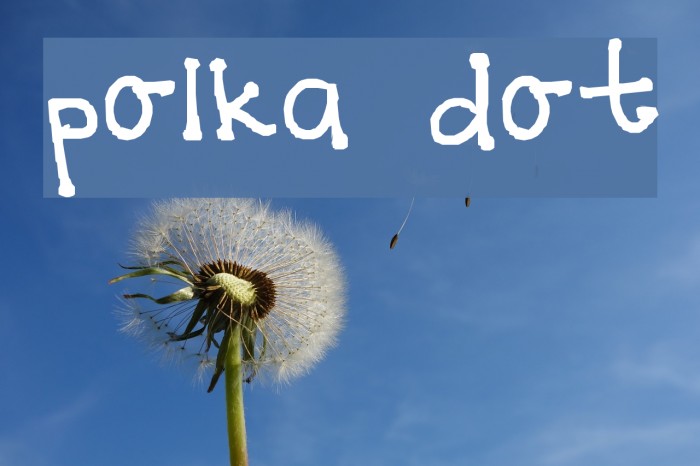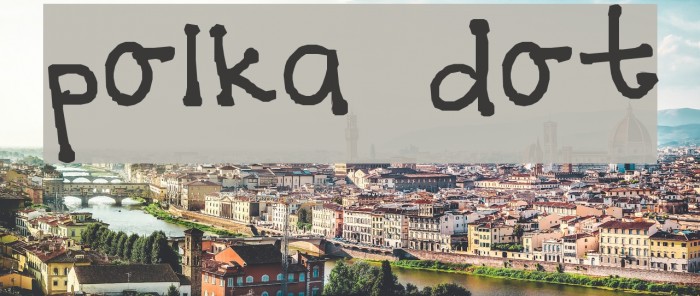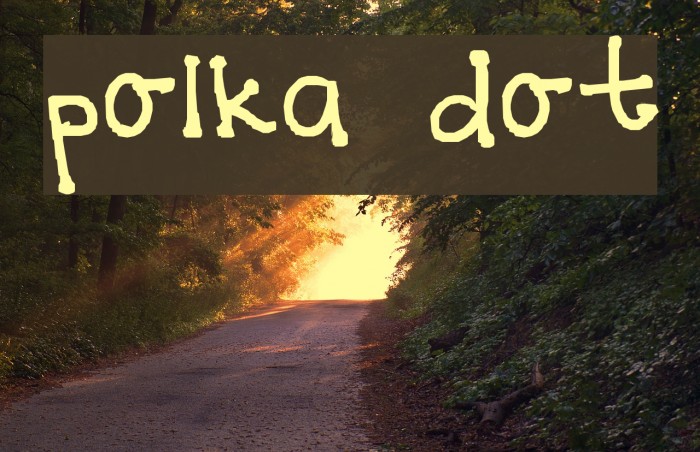
polka dot Font
This playful and whimsical font features a hand-drawn, casual style with irregular strokes and a slightly uneven baseline, giving it a lively and informal appearance. The characters are bold and rounded, with varying stroke widths that add a dynamic and energetic feel. The uppercase and lowercase letters maintain a consistent style, while the numerals and special characters complement the overall design with their quirky and distinctive shapes. This font exudes a sense of fun and creativity, making it ideal for projects that require a personal and approachable touch.
A playful, hand-drawn font with bold, irregular strokes and a lively appearance.
- Proposed Projects: Ideal for children's books, greeting cards, playful branding, and creative posters.